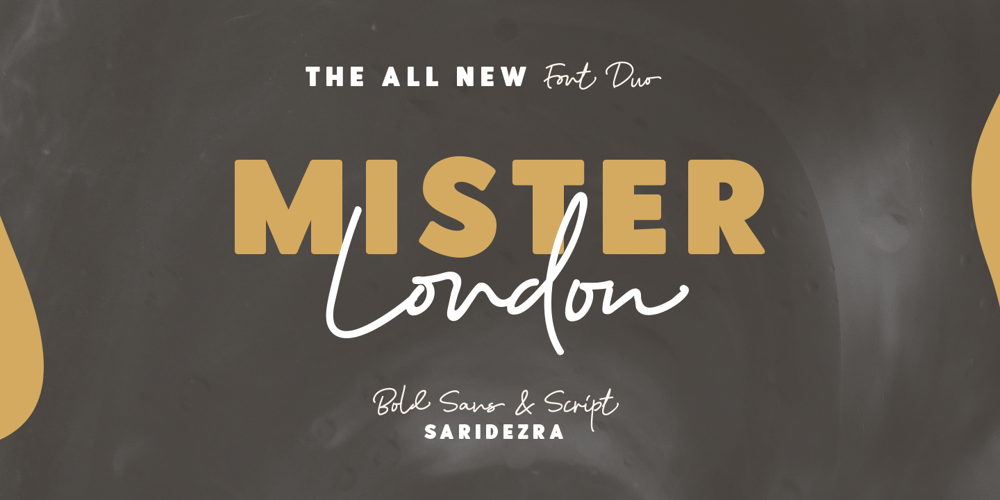
Mister London Font Family was designed by Sarid Ezra and published by Sarid Ezra. Mister London contains 2 styles and family package options. Introducing, the all new font duo, Mister London!Mister London is my newest product that contain two fonts, the bold sans and a signature hand lettering script. You can use this font for every project. Suitable for branding logo, hand lettering, or for branding. This font duo also support multilingual, number and symbol, alternates, swash, and underline.Thank you! – Don’t hesitate to ask me at saridezra@gmail.com